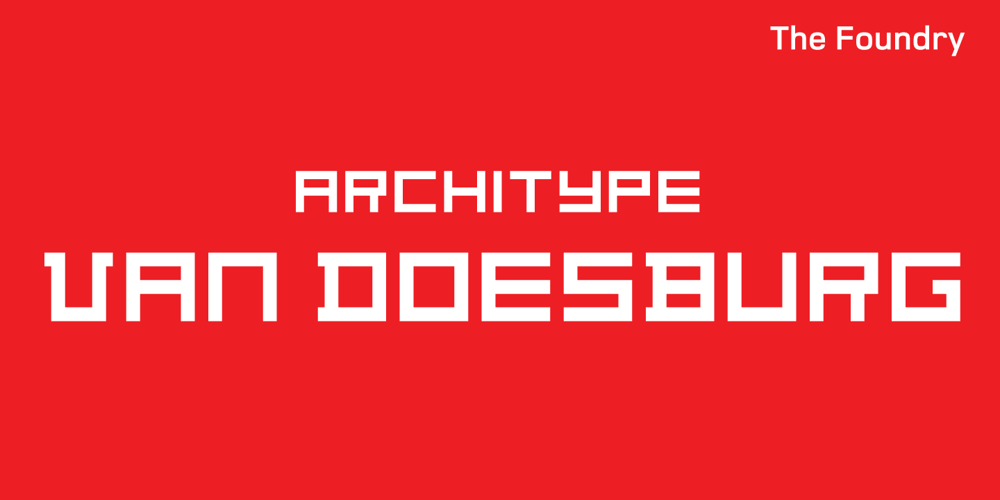
Architype Van Doesburg
Architype Van Doesburg font
Architype Van Doesburg Font Family was designed by Freda Sack, Theo van Doesburg, David Quay and published by The Foundry. Architype Van Doesburg contains 1 styles and family package options. Architype Konstrukt is a collection of avant-garde typefaces deriving mainly from the work of artists/designers of the inter-war years, whose ideals have helped to shape the design philosophies of the modernist movement in Europe. Due to their experimental nature character sets may be limited. Architype Van Doesburg derives from the 1919 experimental geometric alphabet by Theo van Doesburg, whose work was heavily influenced by De Stijl theories, specifically rectangularity. The typeface has been constructed on the same 5 x 5 grid, and is limited by his ‘single alphabet’ theory.